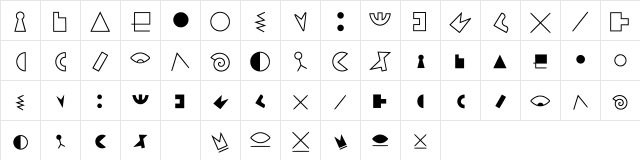
Petiso Carambanal Regular
Design Context for Petiso Carambanal
Petiso Carambanal is a composed and adaptable typeface that performs quietly and consistently across a wide range of design contexts.